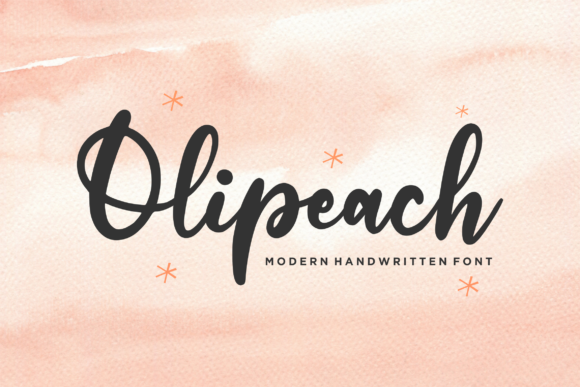
Journey into the realm of captivating calligraphy with Olipeach Script, a font family that exudes elegance and playfulness. Its graceful strokes and charming characters dance along the baseline, inviting you to create designs that are both visually stunning and heartfelt. Embark on a creative odyssey with Olipeach, and watch as your words transform into alluring masterpieces.
Unleash your imagination and explore the boundless possibilities of Olipeach Script. Let its whimsical nature elevate your card designs, adding a touch of enchantment to special occasions. Its versatile style effortlessly complements wedding invitations, birthday cards, and heartfelt greetings. Each letter dances with a unique charm, capturing the essence of joy and celebration.
Immerse yourself in the beauty of Olipeach, a font family that captures the essence of handwritten bliss. Its luxurious curves and delicate details evoke a sense of nostalgia, reminding us of the cherished art of penmanship. With Olipeach, your designs will radiate warmth, authenticity, and timeless appeal.